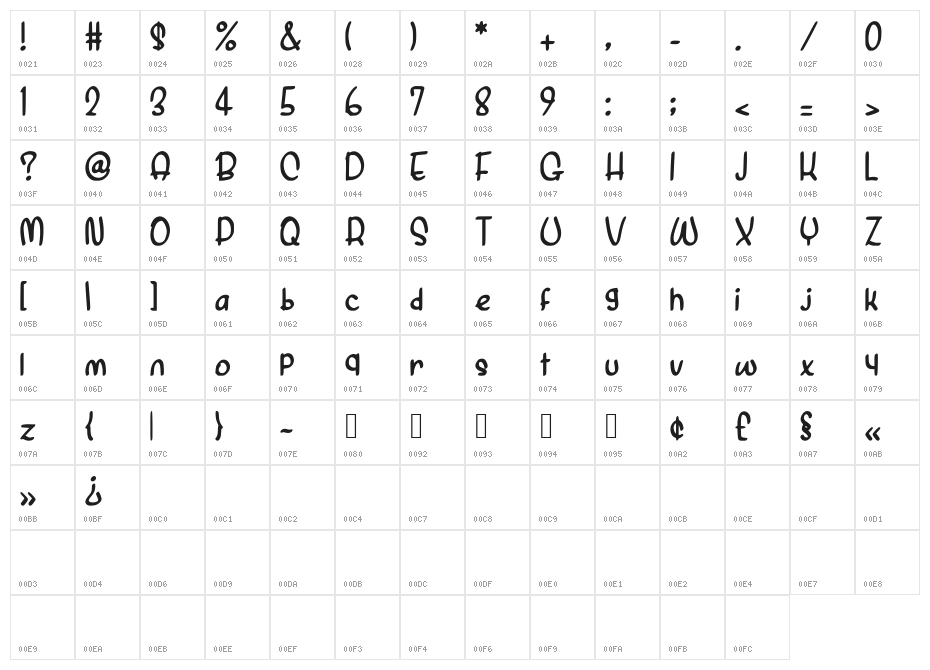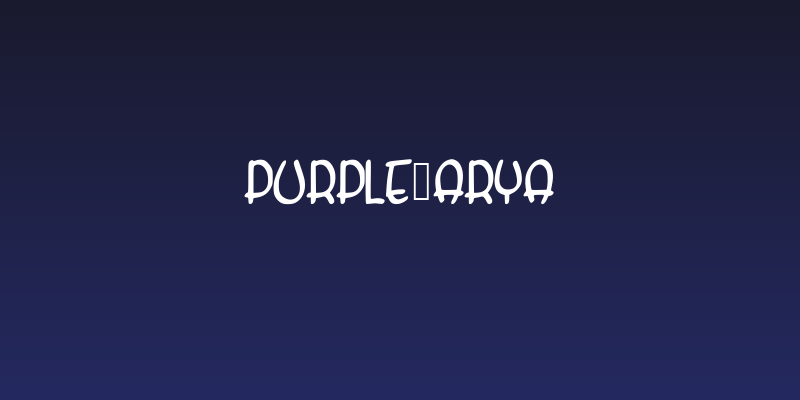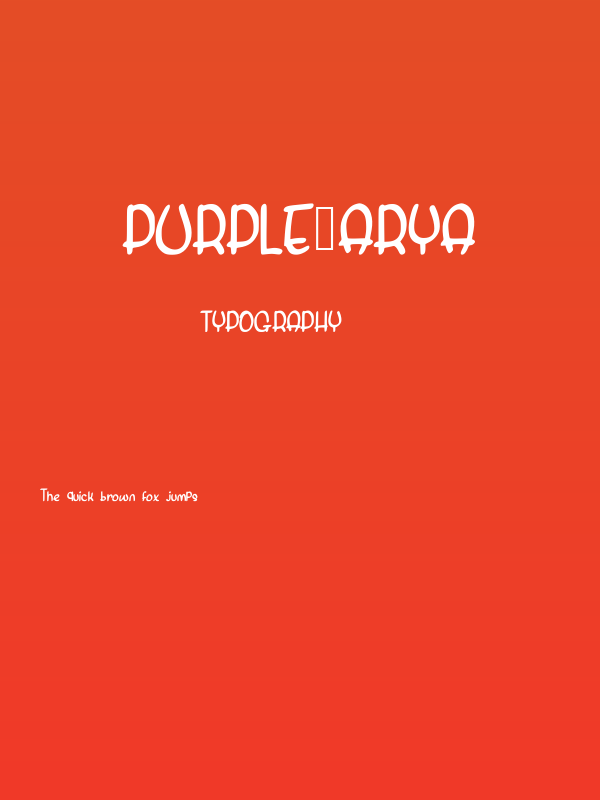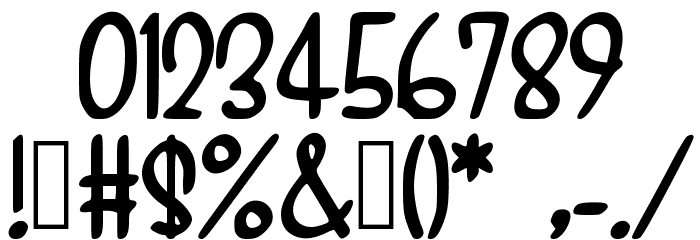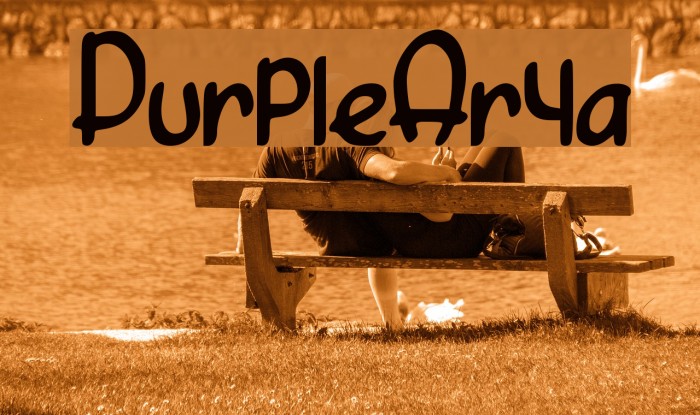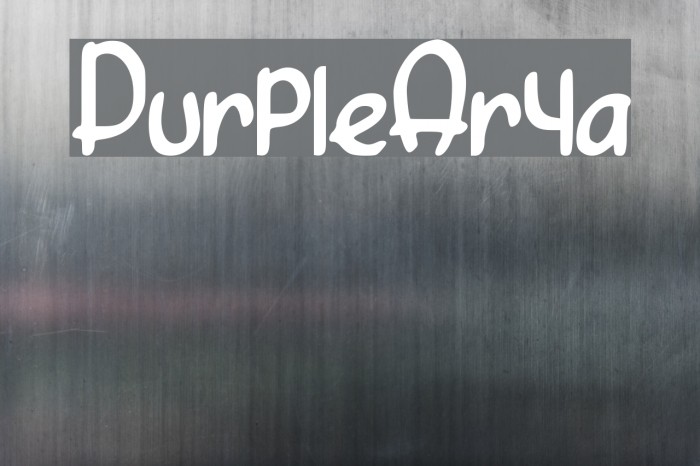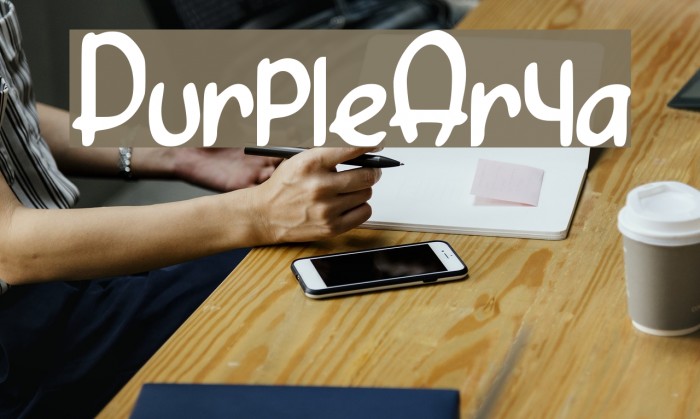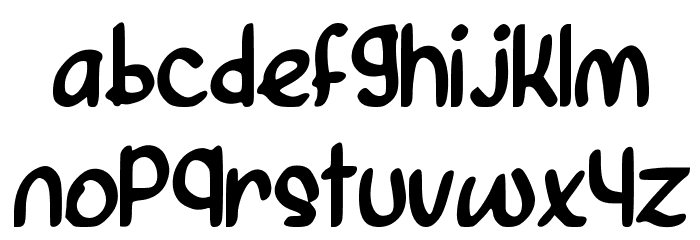
Purple_Arya Font
Purple_Arya Description
This font features a playful and whimsical style with rounded edges and a hand-drawn appearance. The letters are bold and slightly irregular, giving them a casual and friendly look. The uppercase and lowercase letters maintain a consistent style, with the uppercase being slightly taller and more pronounced. Numbers and special characters follow the same playful design, making the font suitable for creative and informal projects. The overall appearance is approachable and fun, ideal for capturing attention in a light-hearted manner.
PURPLE_ARYA UPPERCASE
PURPLE_ARYA LOWERCASE
PURPLE_ARYA OTHER CHARS